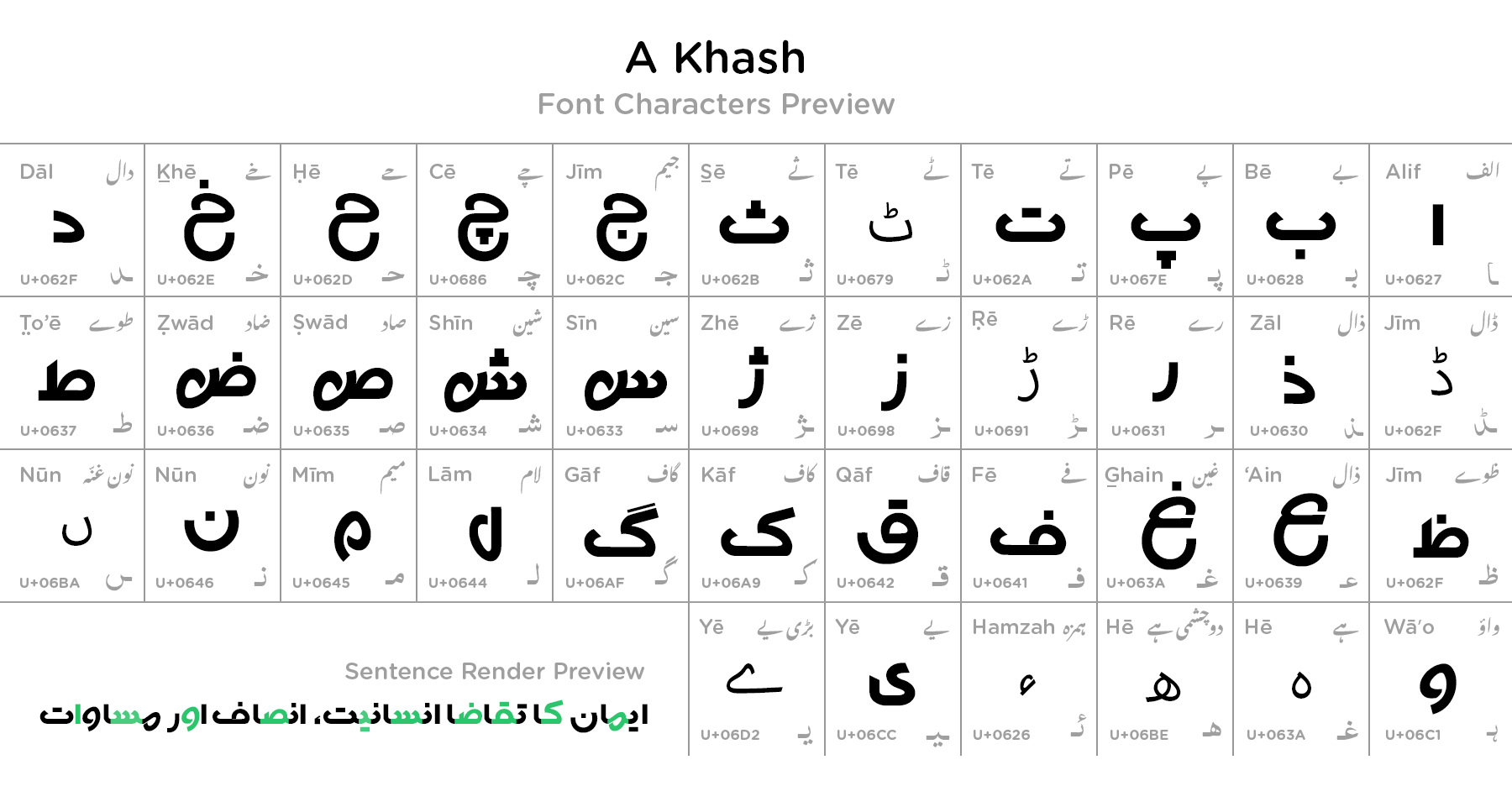
A Khash, crafted by designer Morteza Akhoon Pour, is a circular Arabic font characterized by rounded zero spaces and a compact baseline. Released with only one weight, it features constant thickness throughout the letterform, presenting solid strokes that underline its bold nature. It is a modern design font with no calligraphy basis or inspiration, widely used in creative applications. This font exhibits rounded letterforms with curved corners and wide edges, adding a touch of modernity and softness to its appearance. Its language support includes Arabic, Urdu, and Persian, making it versatile for various design projects. Despite its limitation to a single weight, A Khash finds its niche in logos, branding, headings, posters, and other creative applications, where its boldness can make a strong visual impact. The font’s medium width and moderate, monospaced letter spacing contribute to its legibility, ensuring clear letterforms even on screens. With Unicode blocks encompassing Basic Latin, Latin-1 Supplement, Arabic, and more, A Khash offers compatibility with different text encoding standards. While it excels in conveying short texts due to its bold nature, its rounded and compact design elements make it a versatile choice for designers seeking modern Arabic typography for various creative endeavors.
A Khash
| Font Family | A Khash |
| Font Developer | Morteza Akhoon Pour |